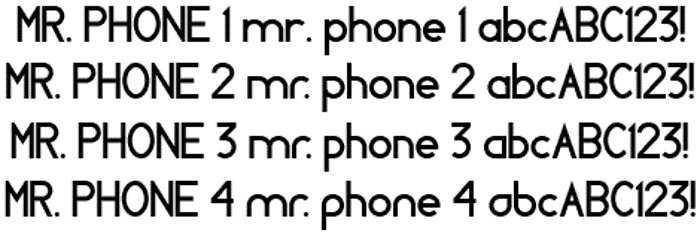
MR. PHONE Font
MR. PHONE Font is a Bauhaus font and was created on . MR. PHONE Font has been downloaded 11,927 times, added to 173 collections, and liked 7 times.